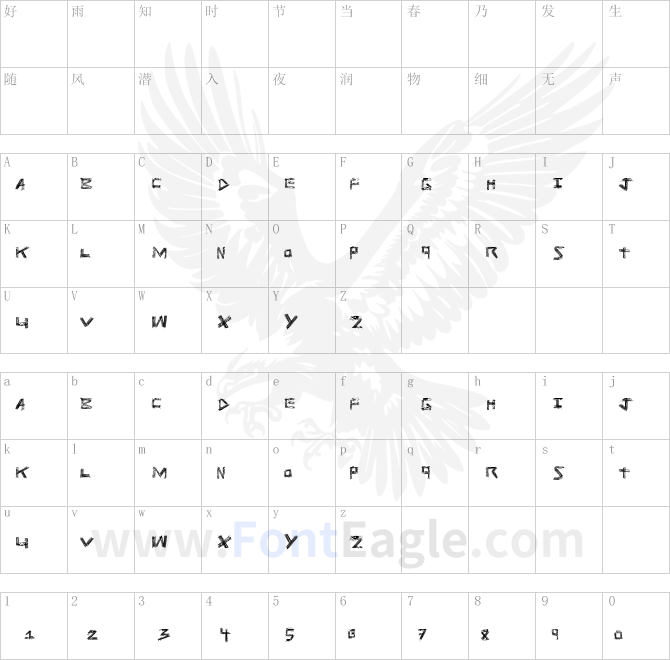
- Font name:PrisonBreak
PrisonBreak is a great font, widely used in graphic design, single-page menu design, poster design and other fields, and is deeply loved by designers.PrisonBreak download.